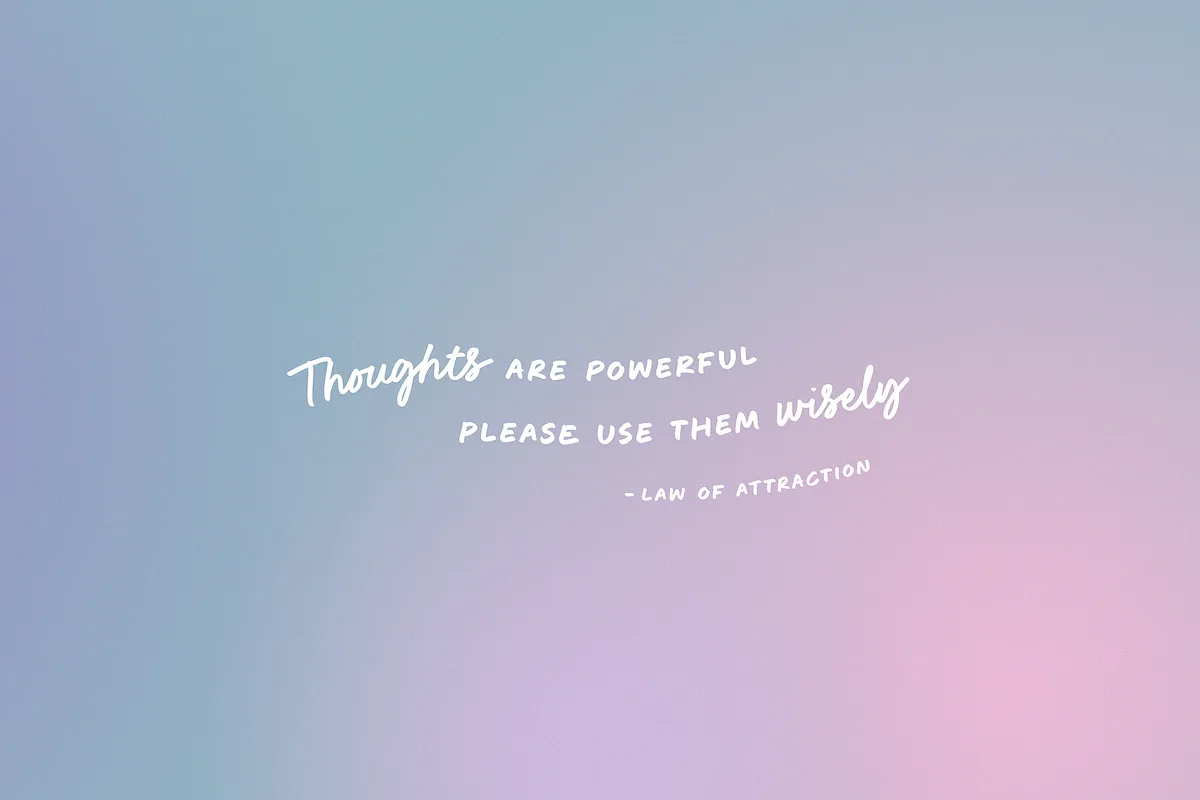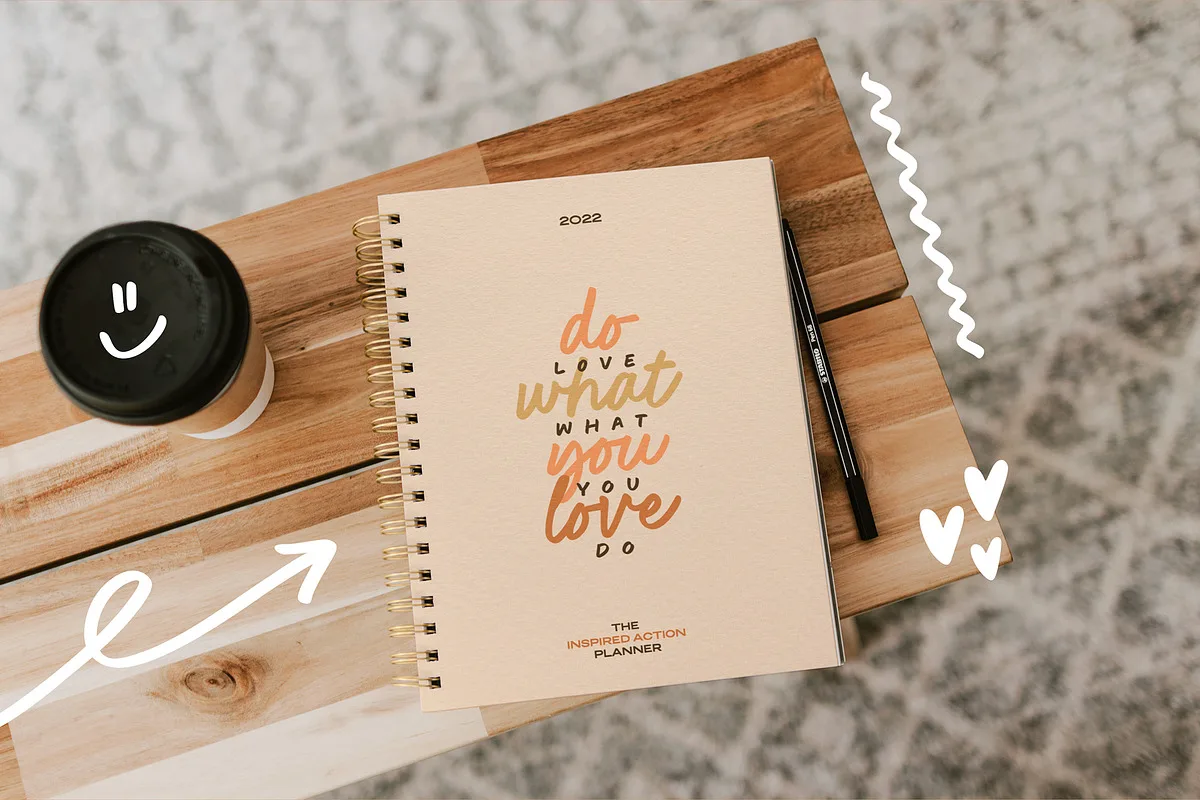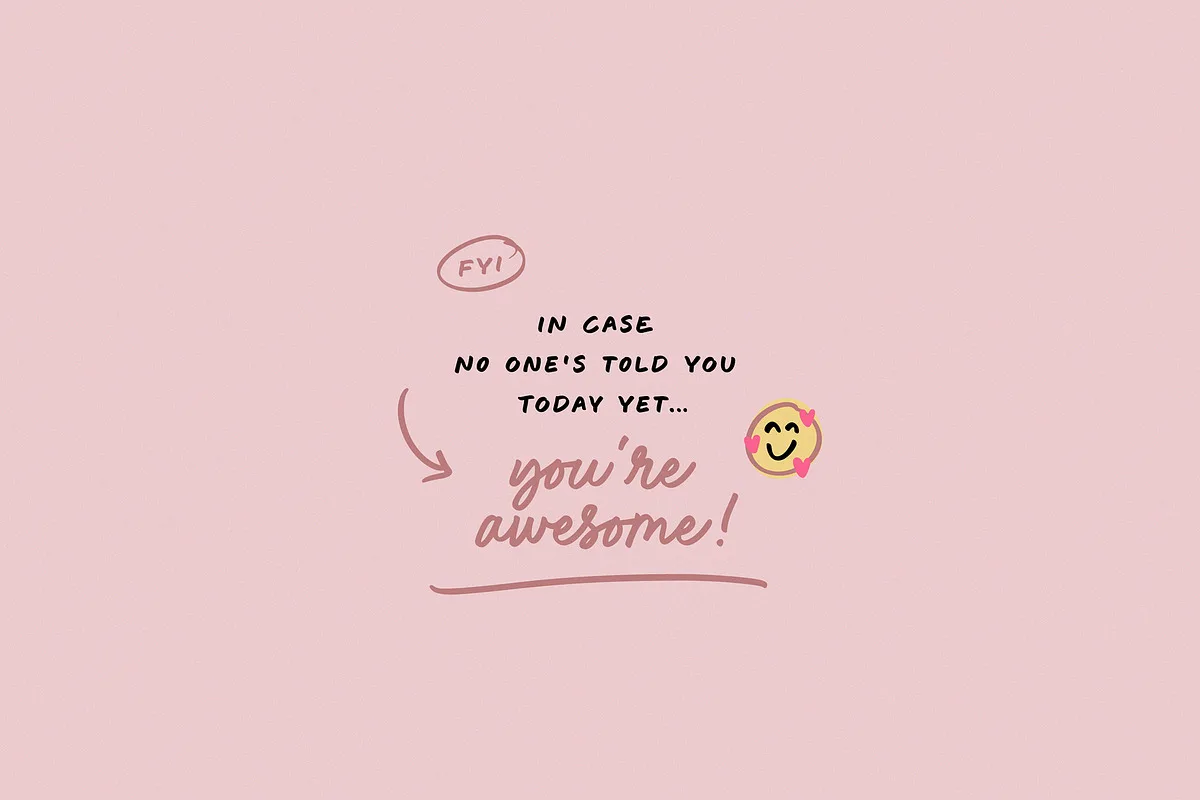
CuteDrop is a, ahem, cute handwritten font duo with a matching script and all-caps font. Both fonts are authentically handwritten with the same marker pen for a consistent look, so you can safely use them together. Or apart. Or mix & match, however you like!
Now it is easy & quick to create designs with a full handmade look, without the headache of making elements from different sources fit together – these are all designed to look like they came from the same pen (cause they did!).
CuteDrop Handwritten Font Duo